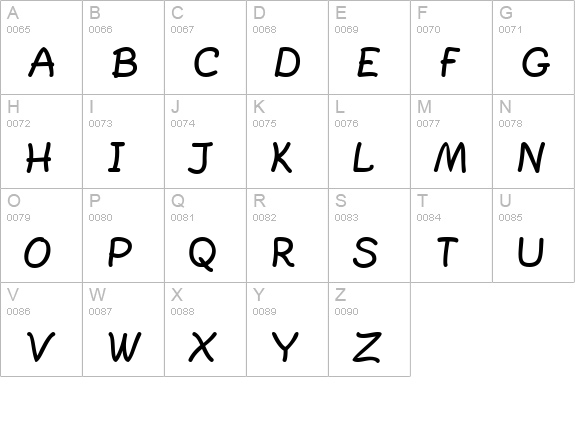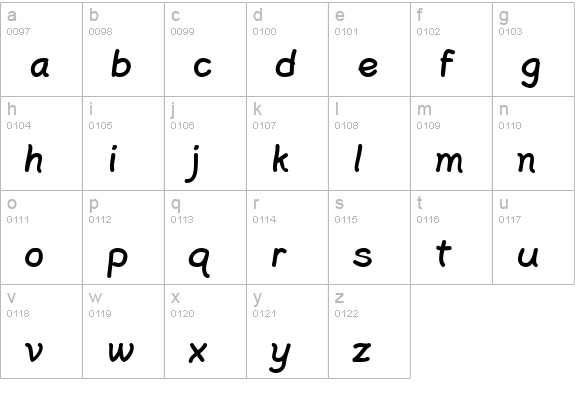
PlainPensleXBold Font Details
Introducing PlainPensleXBold, a truly remarkable font that effortlessly combines elegance, style, and boldness. This font is designed to make a bold statement, leaving a lasting impression on any project it graces. With its clean lines and strong presence, PlainPensleXBold is perfect for capturing attention and conveying a sense of confidence. But what truly sets this font apart is that it is not only visually stunning but also freely available to download. Yes, you read that right - PlainPensleXBold can be yours without spending a dime. FontsMarket.com, the premier destination for font enthusiasts, offers this incredible typeface completely free of charge, allowing you to unleash your creativity without any limitations. Whether you're designing eye-catching logos, crafting captivating headlines, or simply adding a touch of sophistication to your personal projects, PlainPensleXBold is the perfect companion. Its versatility and timeless appeal make it suitable for a wide range of applications, ensuring that your creations stand out from the crowd. The attention to detail in PlainPensleXBold is truly unparalleled. Each character is meticulously crafted, resulting in a harmonious balance between strength and finesse. The bold strokes and confident curves exude a sense of power, while the smooth lines provide a touch of grace and elegance. With PlainPensleXBold, the possibilities are endless. Whether you're a professional designer or a creative enthusiast, this font will elevate your work to new heights. So why wait? Experience the beauty and versatility of PlainPensleXBold today by downloading it for free at FontsMarket.com. Unleash your creativity and let this font be the catalyst for your most stunning designs yet.